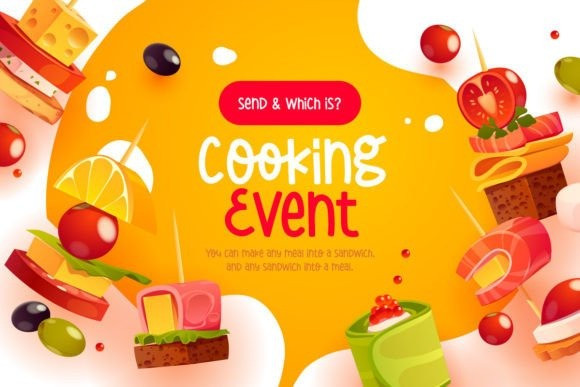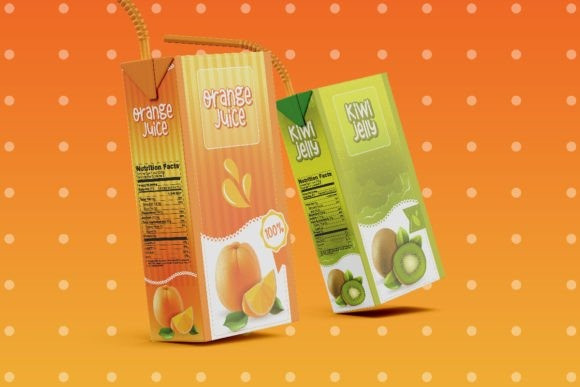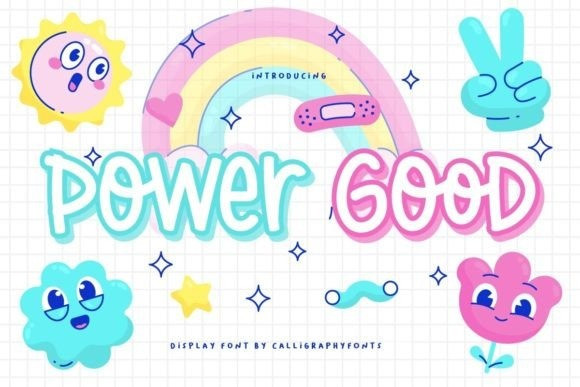
Power Good Font
Power Good Font is a playful handwritten font that exudes a sense of joy and cheer. Its whimsical curves and bouncy strokes give it a lively and fun vibe, perfect for adding a touch of youthfulness to any design. The irregular shapes of the letters add an organic feel to the font, making it a great choice for creative and casual projects.